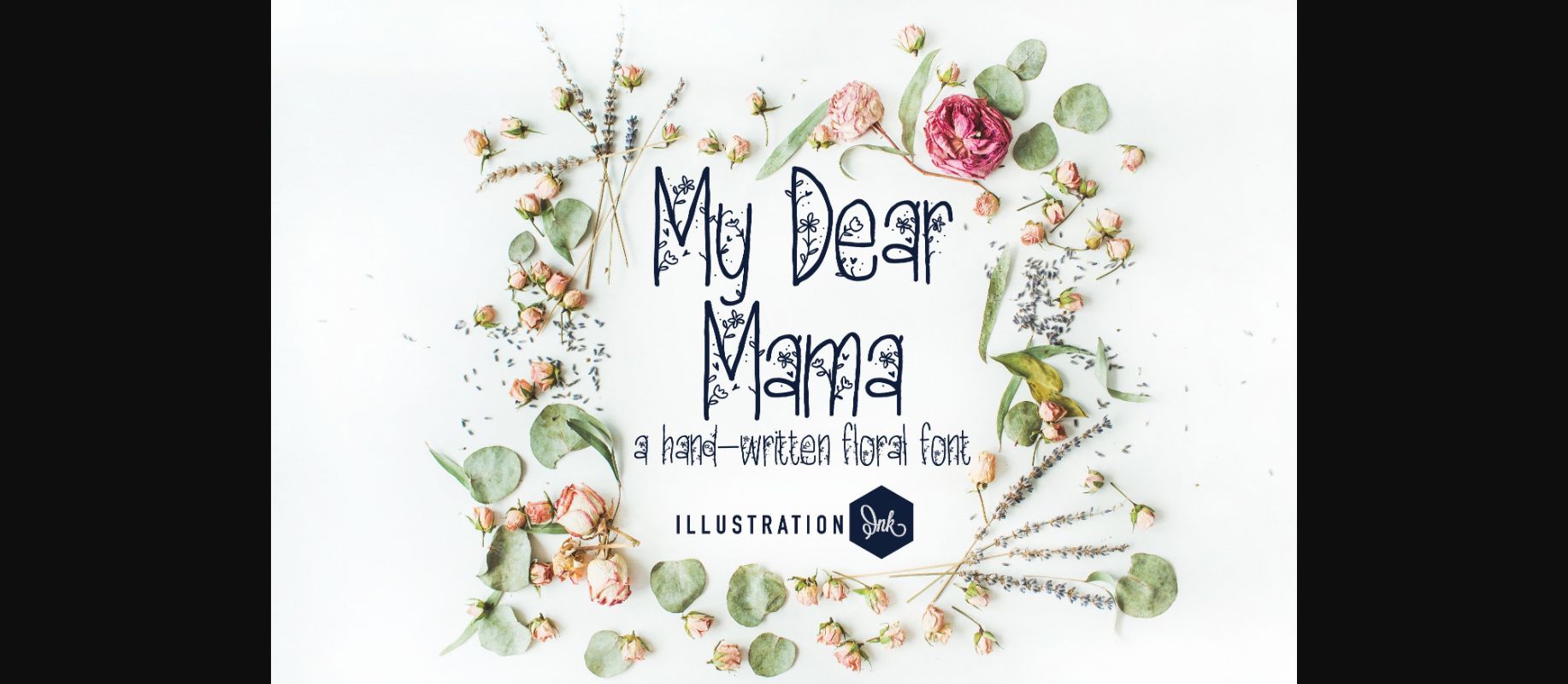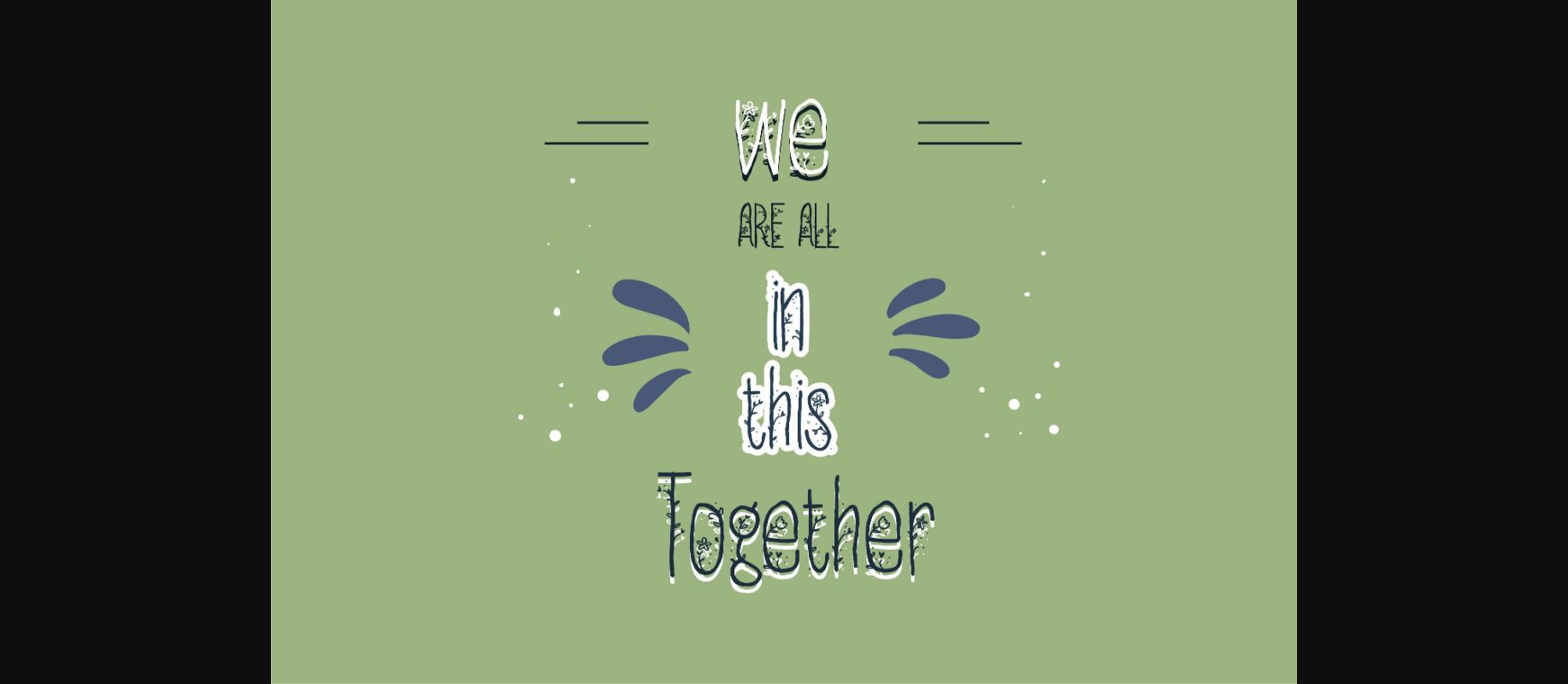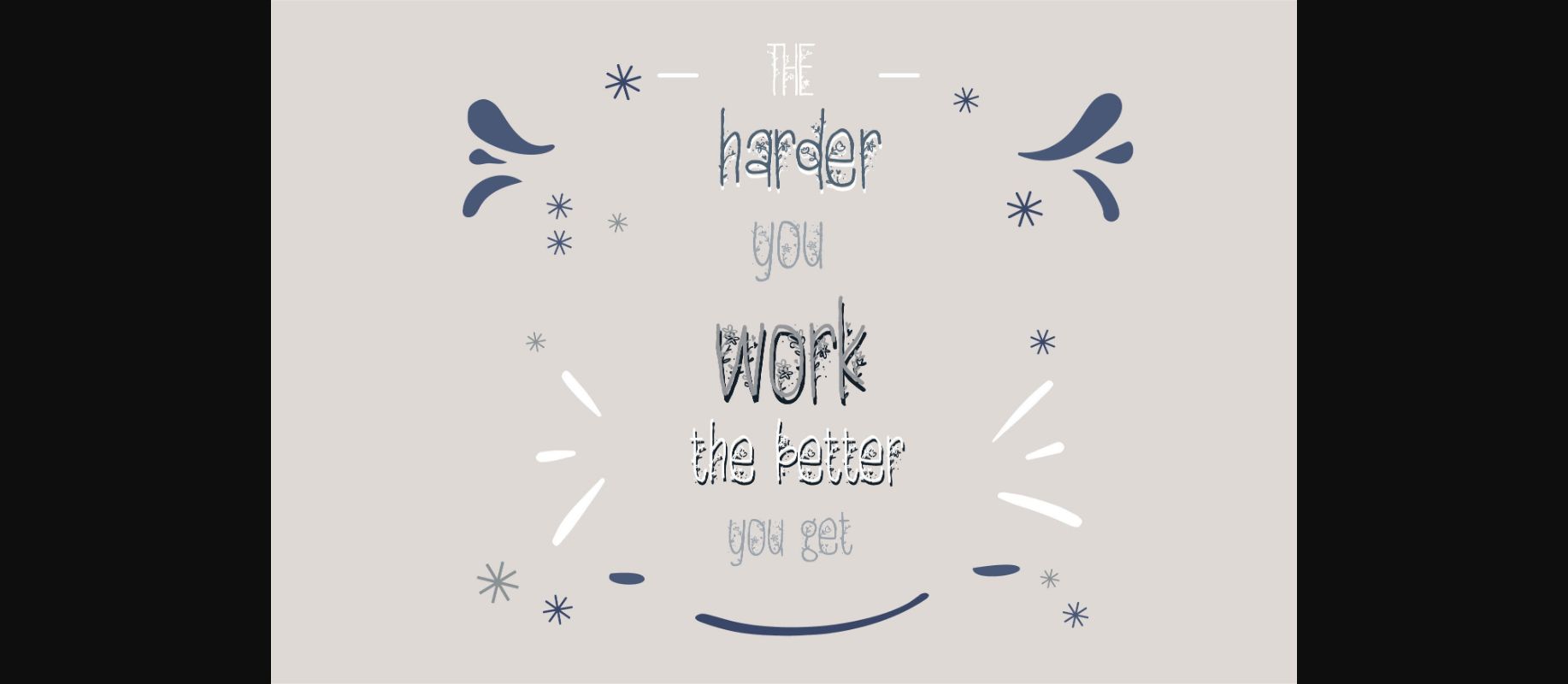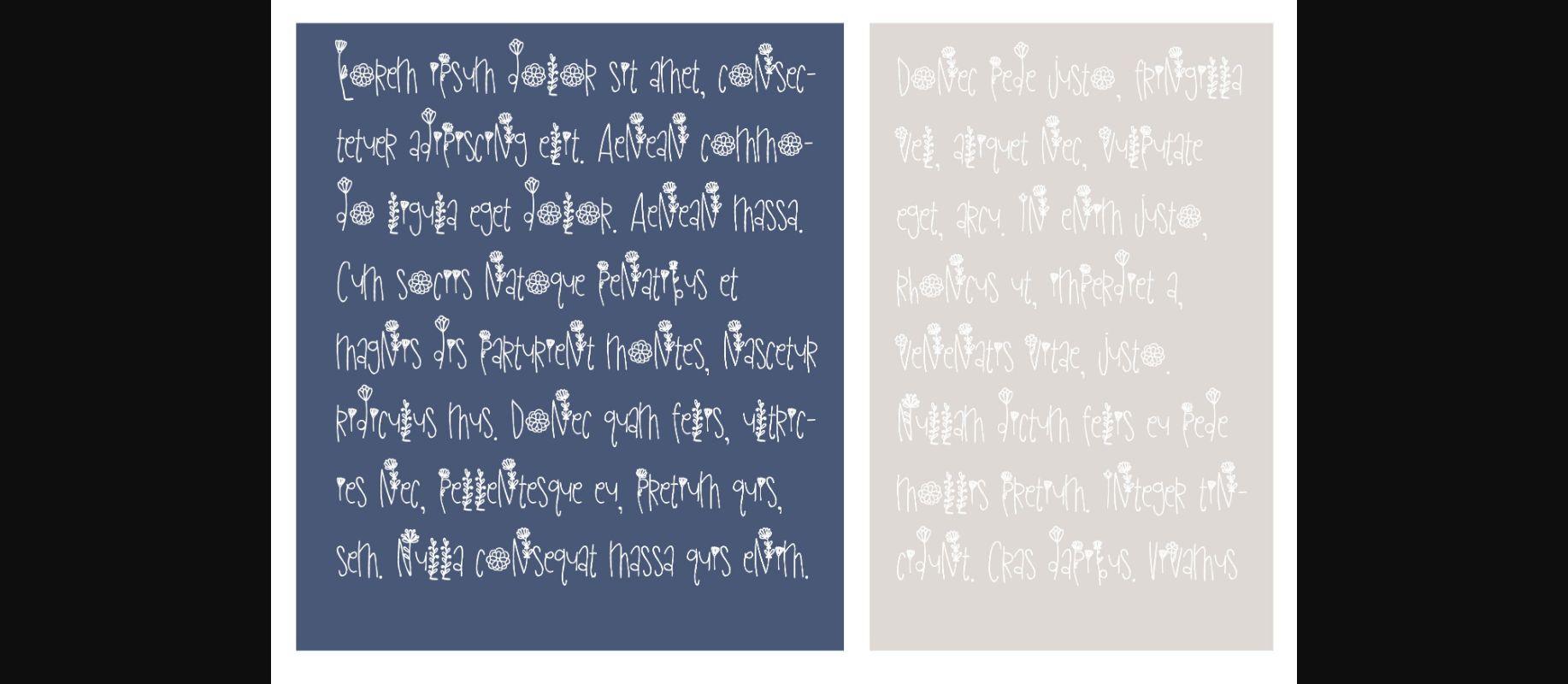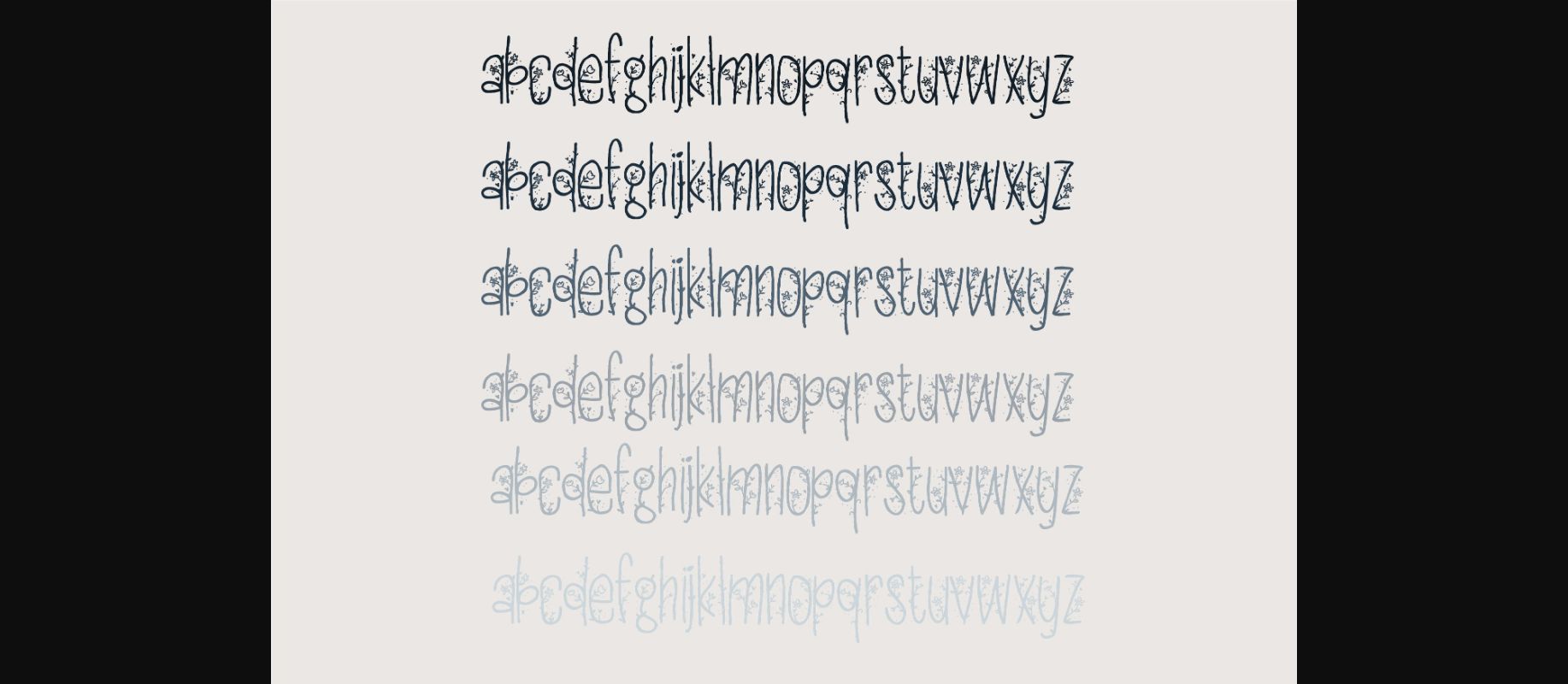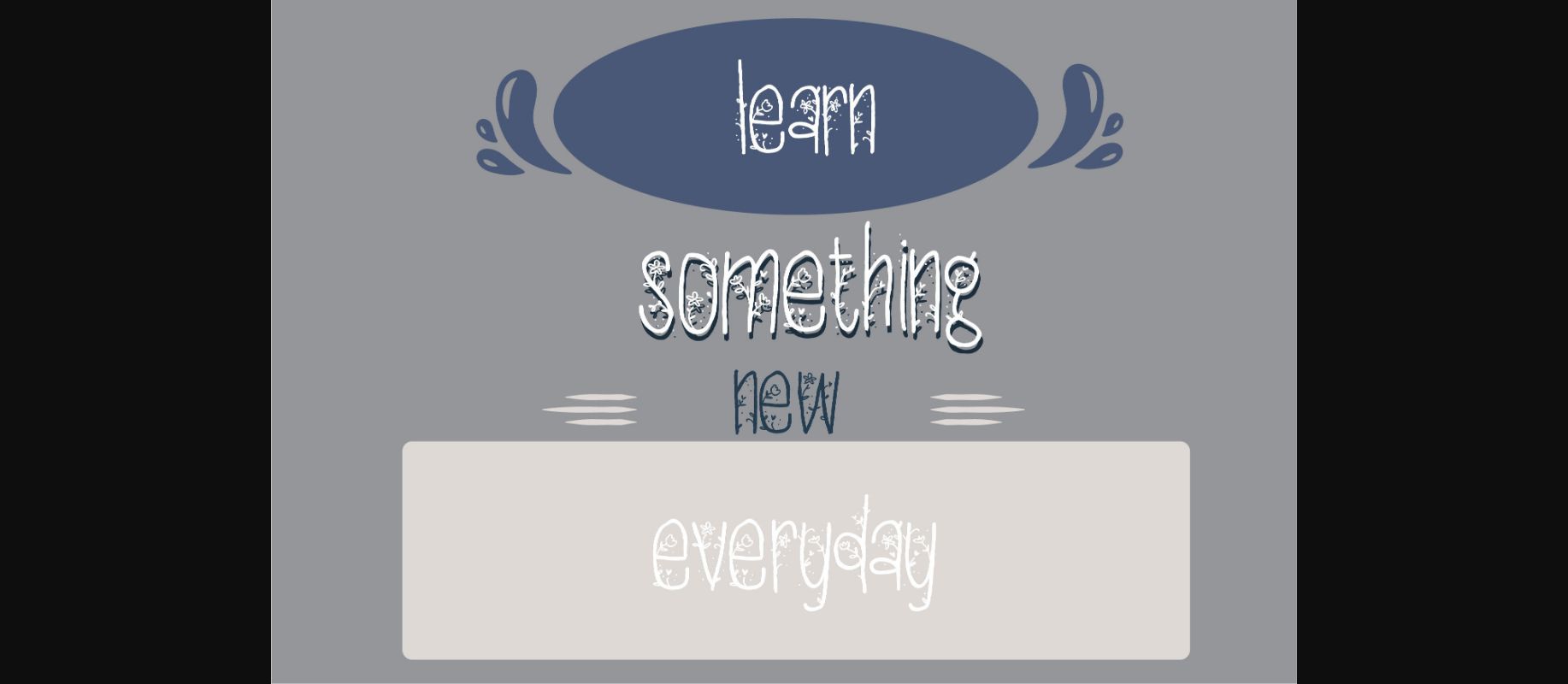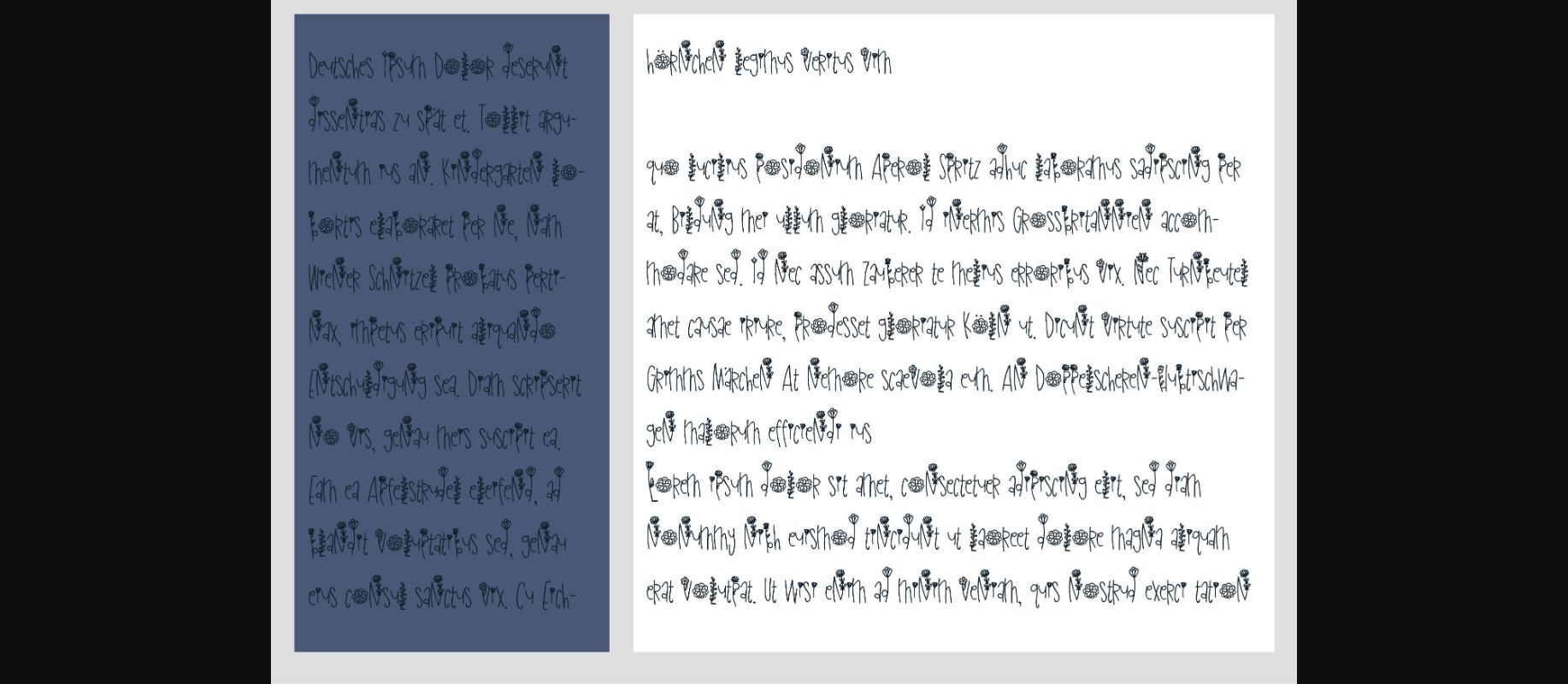
My Dear Mama Font
About My Dear Mama Font
My Dear Mama is a unique and incredibly cute handwritten decorative font. No matter the topic, this font will be an incredible asset to your fonts’ library, as it has the potential to elevate any creation.